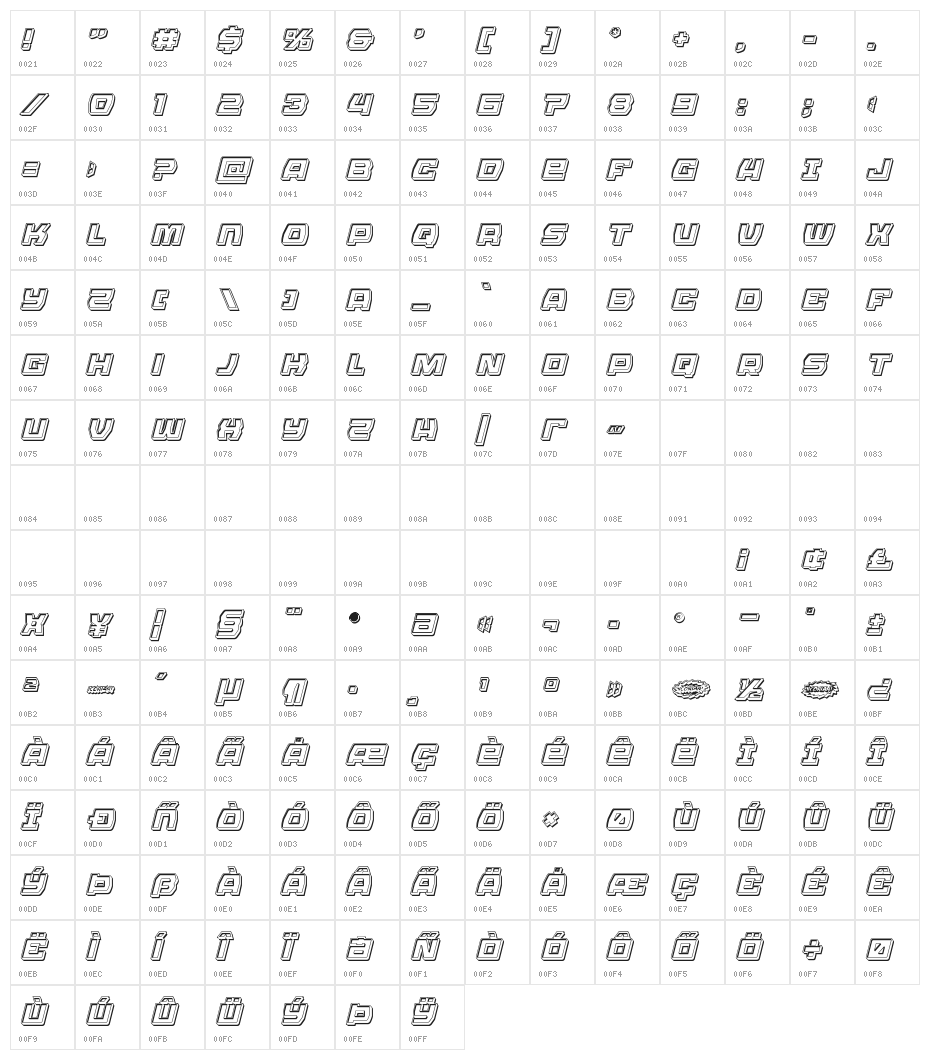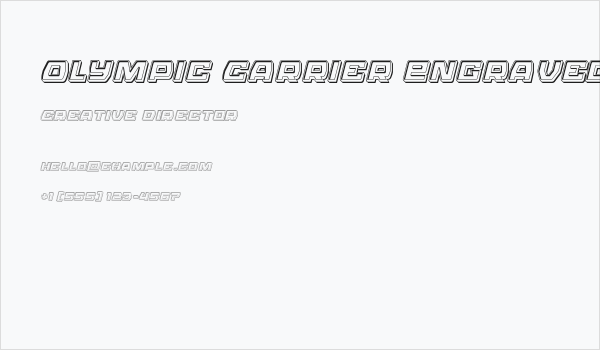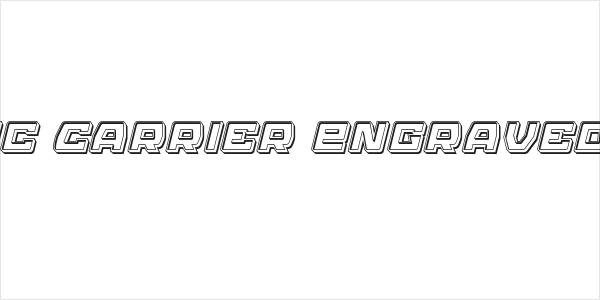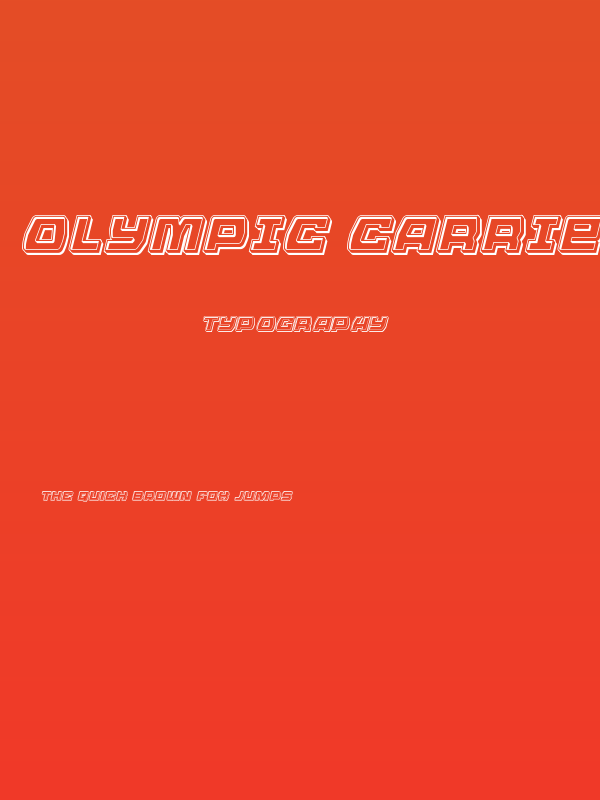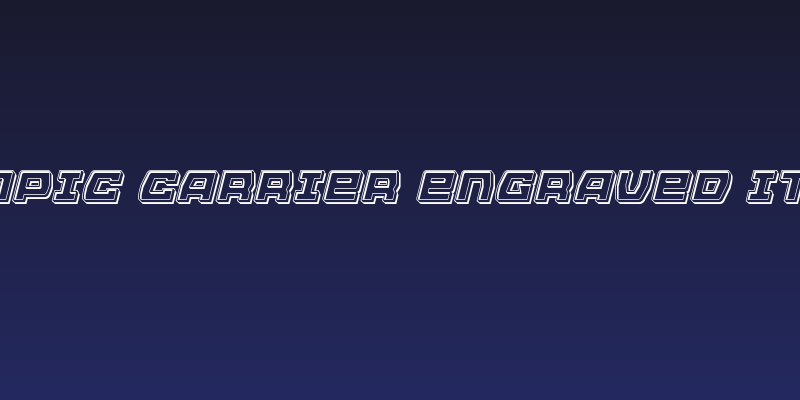
Olympic Carrier Engraved Italic Font
Olympic Carrier Engraved Italic Description
This font features a bold, engraved style with a three-dimensional effect, giving it a distinct and dynamic appearance. The characters are outlined with a double line, creating a sense of depth and movement. The italic slant adds a touch of elegance and speed, making it suitable for attention-grabbing designs. The uppercase and lowercase letters maintain a consistent style, with sharp angles and clean lines. Numbers and special characters are designed to match the bold and engraved aesthetic, ensuring a cohesive look across all text elements.
| Proposed Projects | Ideal for sports branding, poster designs, video game titles, and dynamic logos. |